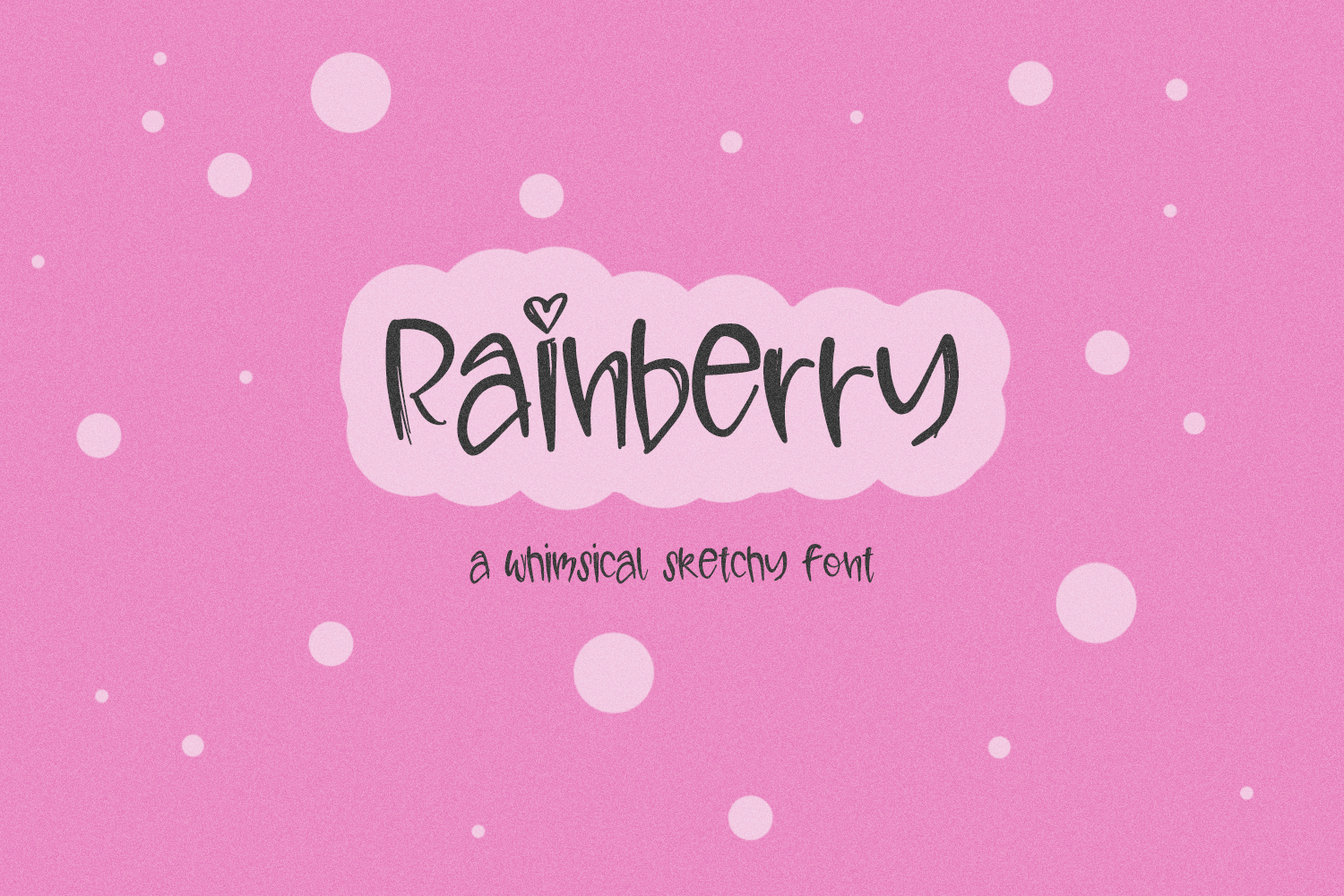
Rainberry Sans is a playful sketchy font. The lowercase letters in Rainberry are tall, like a capital letter, so you could easily mix cases to customize the look of your text.
- 2 alternates - i, j with little heart dots
- 10 ligatures - ee, ff, gg, ll, mm, nn, oo, rr, ss, tt